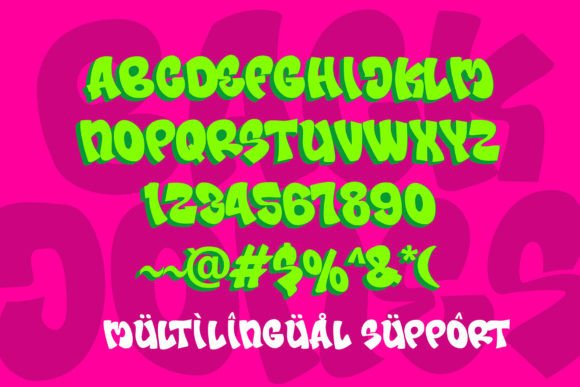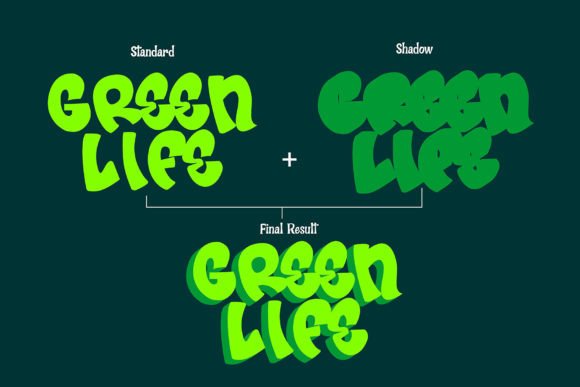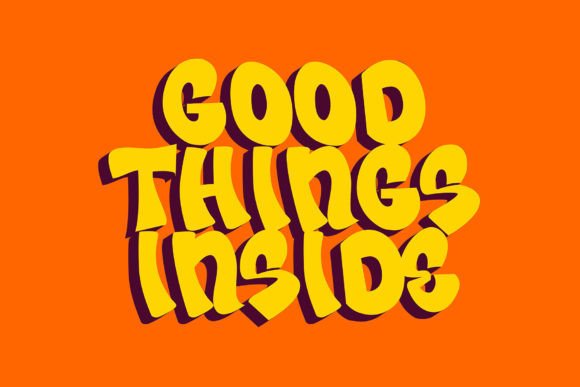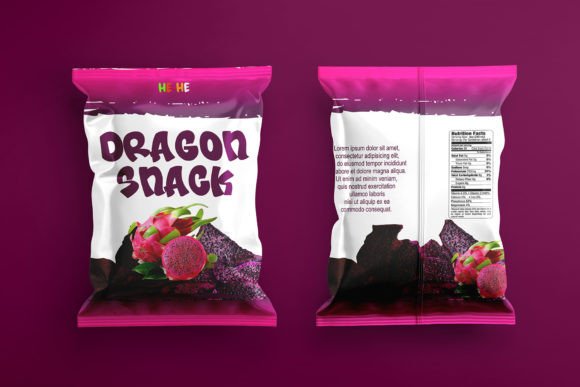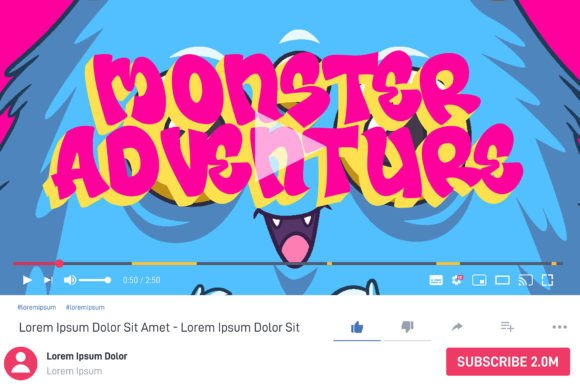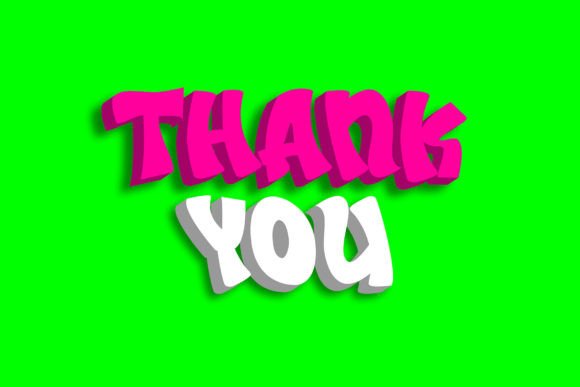
Introducing Back Jones 3D Layered Font: A Playful and Friendly Choice for Kids’ Designs
Are you looking for a font that can add a touch of whimsy and charm to your designs for kids? Look no further than the Back Jones 3D Layered Font! This adorable display font is characterized by thick and rounded letterforms, making it a great choice for design projects aimed at children, such as children’s games, book covers, and any projects related to schools.
The Perfect Font for Kids’ Designs
The “Back Jones” font is specifically designed to appeal to young audiences. Its playful and friendly appearance makes it an excellent choice for designers and crafters who want to create engaging and enjoyable content for kids. Whether you’re working on a children’s book, a game, or an educational project, this font is sure to delight.
One of the key benefits of the “Back Jones” font is its simplicity and clarity. The thick and rounded letterforms make it easy to read and understand, even for young learners. This makes it an excellent choice for educational materials, such as textbooks, worksheets, and activity sheets.
Key Features of Back Jones 3D Layered Font
- Thick and rounded letterforms: The font’s chunky and rounded letterforms give it a playful and friendly appearance that’s perfect for kids’ designs.
- Easy to read and understand: The simplicity and clarity of the font make it easy for young learners to read and comprehend.
- Perfect for kids’ designs: The font is specifically designed for use in children’s games, book covers, school projects, and other designs aimed at young audiences.
- 3D layered effect: The font comes with a 3D layered effect that adds depth and visual interest to your designs.
Uses for Back Jones 3D Layered Font
The Back Jones 3D Layered Font is a versatile font that can be used in a variety of design projects, including:
- Children’s book covers: The font’s playful and friendly appearance makes it perfect for use on children’s book covers.
- Kids’ games and activities: The font is ideal for use in kids’ games, puzzles, and activities.
- School projects: The font is a great choice for school projects, such as posters, flyers, and brochures.
- Educational materials: The font’s simplicity and clarity make it an excellent choice for educational materials, such as textbooks, worksheets, and activity sheets.
Why Choose Back Jones 3D Layered Font?
There are many fonts available that are suitable for kids’ designs, but the Back Jones 3D Layered Font stands out for several reasons:
- Unique and playful appearance: The font’s thick and rounded letterforms give it a unique and playful appearance that’s sure to delight kids.
- Ease of use: The font is easy to read and understand, making it perfect for young learners.
- Versatility: The font can be used in a variety of design projects, from children’s book covers to educational materials.
If you’re looking for a font that can add a touch of whimsy and charm to your kids’ designs, look no further than the Back Jones 3D Layered Font. With its playful and friendly appearance, simplicity, and clarity, this font is perfect for designers and crafters who want to create engaging and enjoyable content for kids. Whether you’re working on a children’s book, a game, or an educational project, this font is sure to delight.